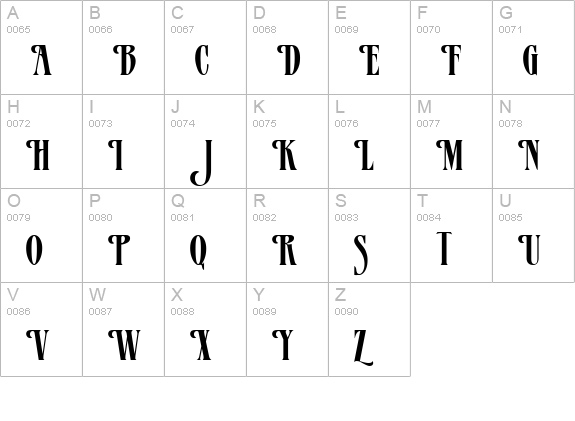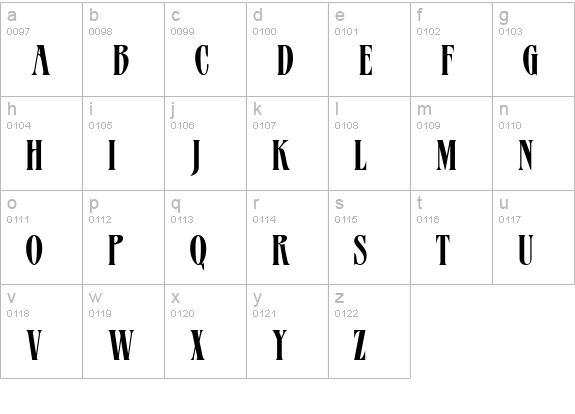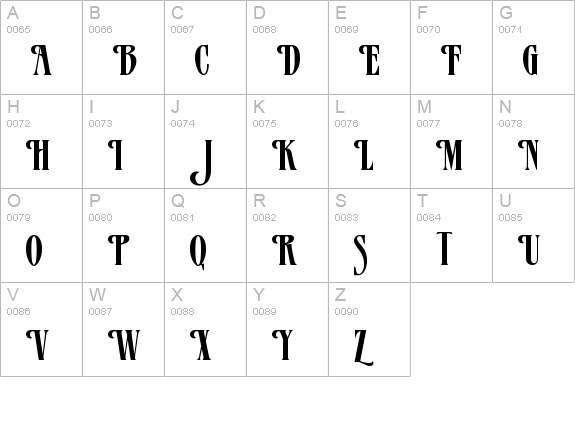
Verve Font Details
Verve font is a stunning typeface that exudes elegance and sophistication. With its graceful curves and clean lines, this font is perfect for adding a touch of class to any project. Whether it's for a wedding invitation, a logo design, or a stylish website, Verve font will make a lasting impression. But what sets Verve font apart is not just its beauty, but also its accessibility. This incredible font is available for free download at FontsMarket.com, making it accessible to designers and enthusiasts alike. Now, you can add a touch of Verve to your creations without breaking the bank. The versatility of Verve font is truly remarkable. It can be used for both headlines and body text, ensuring that your message is conveyed with utmost clarity and style. Its legibility is unparalleled, making it a reliable choice for any project, no matter the size or scope. The designers of Verve font have paid meticulous attention to every detail, resulting in a typeface that is both timeless and modern. Its balanced letterforms and thoughtful spacing create a harmonious rhythm that is pleasing to the eye. Each character is carefully crafted, ensuring that they seamlessly blend together to create a cohesive and visually appealing design. Verve font is not just a typeface; it is a statement. It represents a commitment to excellence and a passion for design. With its free availability at FontsMarket.com, there is no reason not to incorporate this stunning font into your next project. So go ahead, download Verve font today and let its elegance and sophistication elevate your designs to new heights.